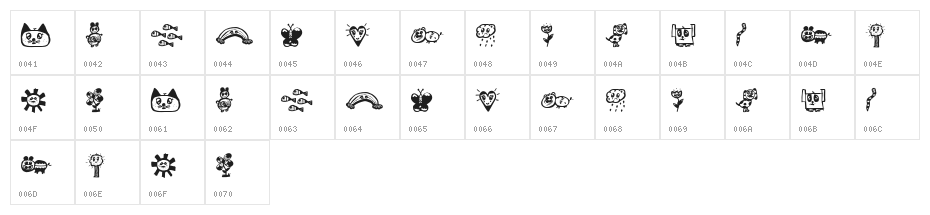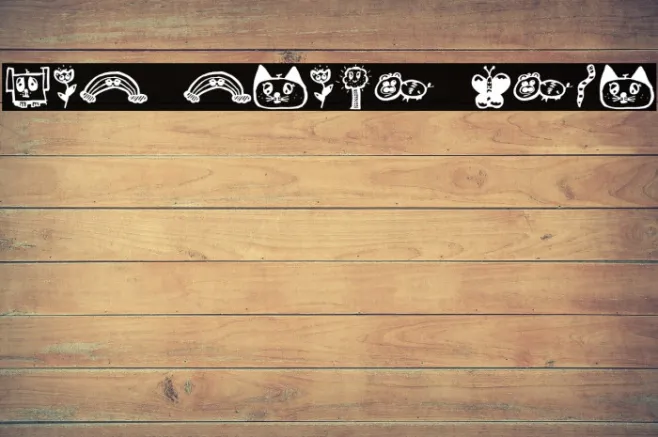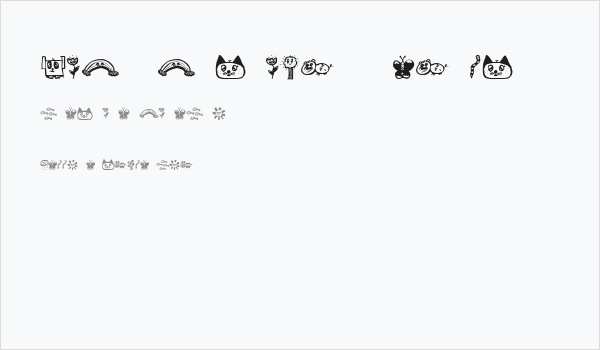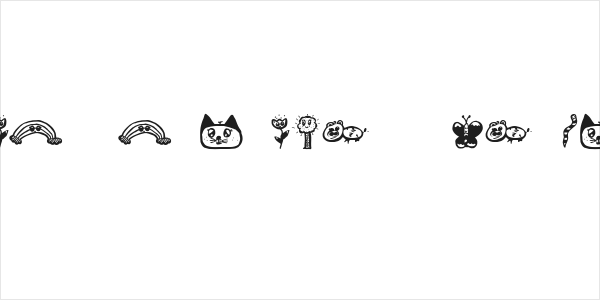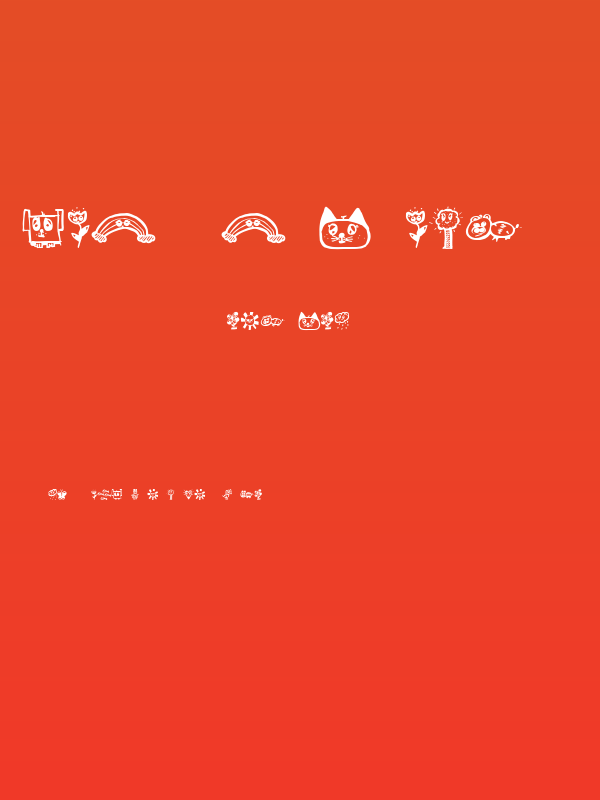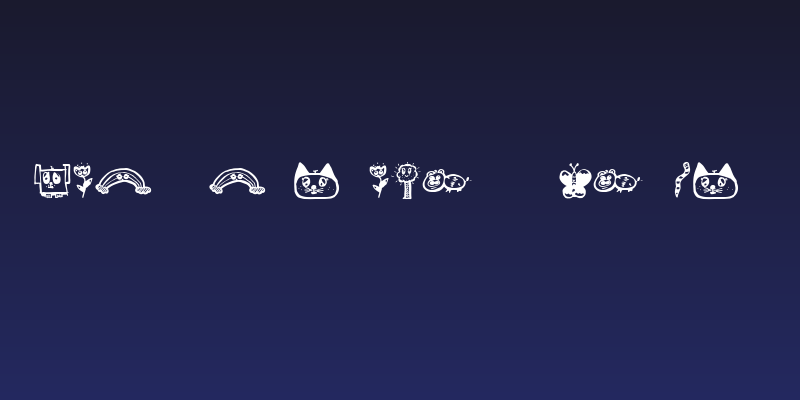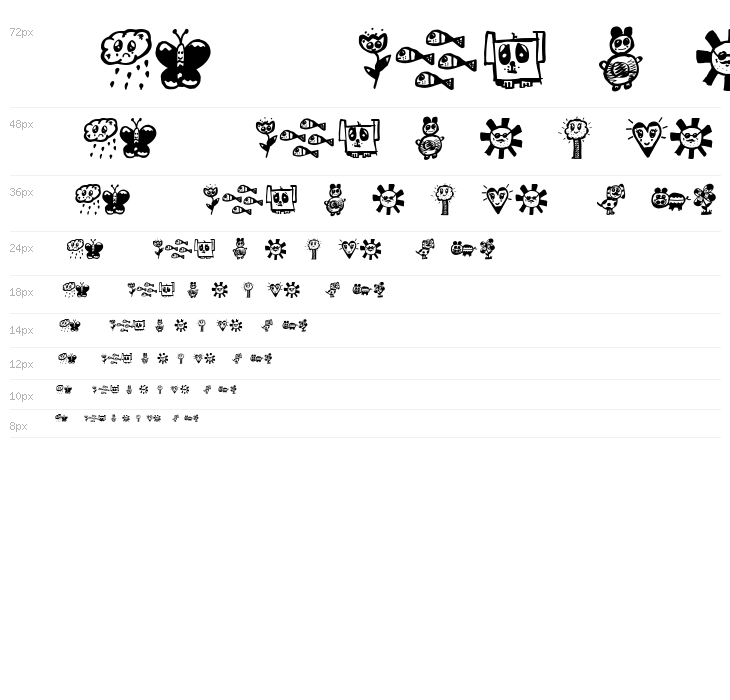
Kids Drawings Regular Font
Kids Drawings Regular Description
This whimsical font features playful, hand-drawn illustrations that resemble children's doodles. Each character is a unique drawing, including animals, plants, and abstract shapes, all with a charmingly imperfect and naive style. The lines are bold and uneven, adding to the playful and carefree aesthetic. The font is highly decorative, with each character standing out as a distinct piece of art. The overall look is fun and imaginative, perfect for projects that aim to capture a sense of youthful creativity and joy.
| Use Case | Decorative elements, Creative projects |
| Proposed Projects | Ideal for children's books, playful greeting cards, educational materials, and creative branding projects. |